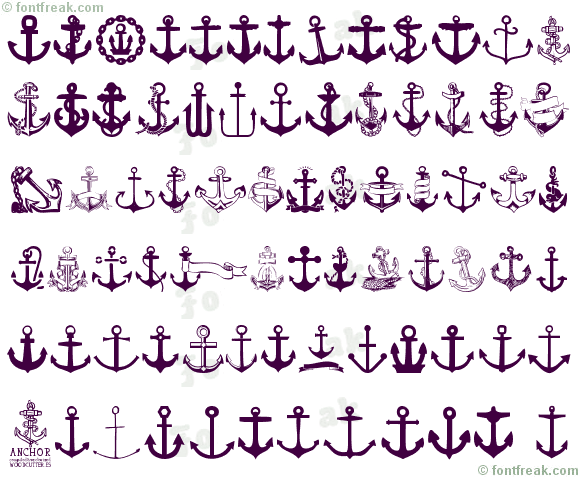
Anchor
The Anchor font by woodcutter Manero is a distinctive decorative typeface that captivates with its nautical theme. This unique font showcases a blend of bold strokes and intricate details, making it an eye-catching option for various design projects. The stroke weight varies, creating a sense of depth and emphasis, while the spacing is balanced, ensuring legibility without sacrificing style. Its whimsical yet sturdy design features elements that evoke the charm of maritime adventures, making it perfect for those looking to add a touch of creativity to their work.
The Anchor font excels in several specific use cases. It's ideal for wedding invitations, where its decorative nature can convey a sense of elegance and romance. Additionally, it works wonderfully for movie posters, particularly those centered around maritime themes or adventurous tales. Restaurant menus, especially for seafood establishments, can benefit from the font's nautical flair, enhancing the overall dining experience. Graphic designers will also find this typeface useful in branding projects, as it lends itself well to creating memorable logos and promotional materials.
Targeted towards graphic designers, small business owners, and content creators, the Anchor font offers versatility and charm. Its unique visual style allows users to express creativity while maintaining professionalism in their designs.
In conclusion, the Anchor font stands out not only for its artistic flair but also for its adaptability across various formats. Whether you're crafting a wedding invitation or designing a restaurant menu, the Anchor font free download is an excellent choice that brings a unique character to any project. Its combination of boldness and whimsy makes it a memorable addition to any designer's toolkit.